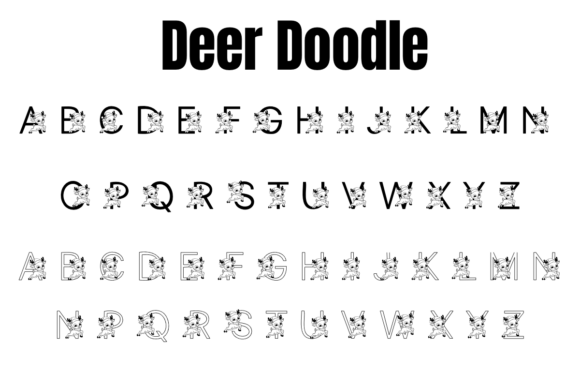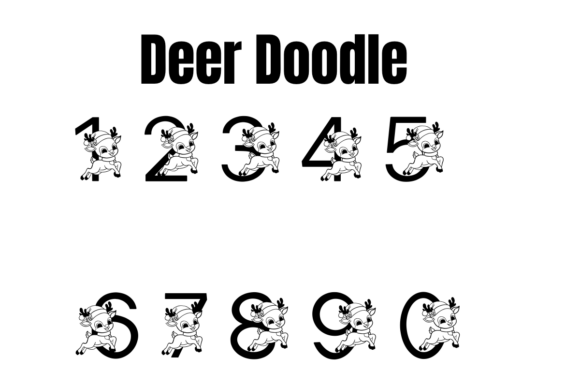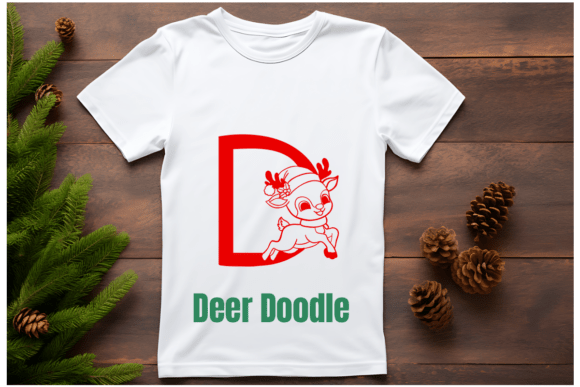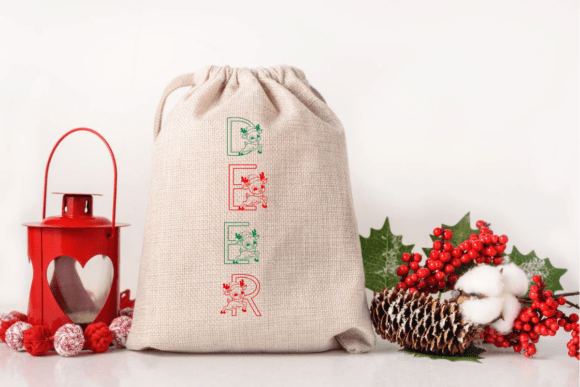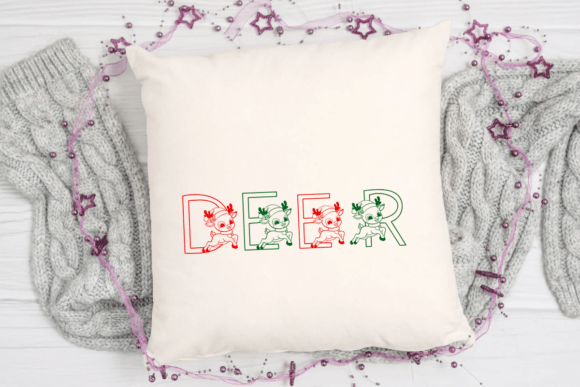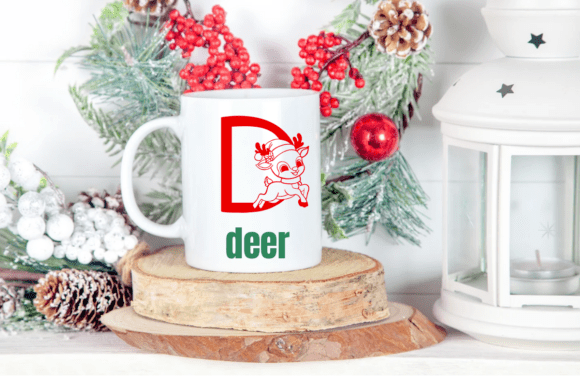
Introduction to Deer Doodle Font
Do you ever find yourself stuck in a creative rut, searching for the perfect design element to bring your project to life? For many of us, it’s that moment of discovery when we stumble upon a unique and inspiring resource that sparks our imagination. For designers and crafters alike, the discovery of the Deer Doodle Font is sure to be a game-changer.
As a high-quality, free download font, Deer Doodle Font is a treasure trove of creative possibilities. With its delightful combination of playful letterforms and adorable reindeer illustrations, this design resource is perfect for adding a joyful seasonal twist to your festive projects. Whether you’re working on Christmas cards, winter party invitations, or classroom activities, the Deer Doodle Font is sure to bring warmth, fun, and personality to your designs.
With its transparent background and solid/outlined styles, the Deer Doodle Font offers endless opportunities for mixing and matching to suit your creative vision. Whether you’re a seasoned designer or a crafty beginner, this versatile font is sure to delight both kids and adults alike, making it an invaluable addition to your design toolkit.
Key Features of Deer Doodle Font
- High-quality, unique design perfect for creative projects requiring a playful touch.
- Features a transparent background, allowing for effortless layering and customization.
- Comes in a single size, making it easy to scale and adapt to different design requirements.
- Resolution: Optimized for high-resolution displays, ensuring crisp and clear typography.
- Unique characteristics: Whimsical, hand-drawn feel and a wide range of expressive styles, making it perfect for adding a personal touch to any design project.
Honest Review: Deer Doodle Font
As a designer, I’m always on the lookout for unique and versatile fonts to elevate my creative projects. The Deer Doodle Font caught my attention, and I decided to give it a try.
- ✨ The Deer Doodle Font has a distinct and whimsical style that’s perfect for adding a touch of playfulness to designs.
- ✨ The transparent background option allows for seamless integration with other design elements.
- ⚠️ The font may not be suitable for formal or professional projects due to its informal style.
- ⚠️ The Deer Doodle Font is a bit on the larger side, which may not work well with tight typography layouts.
Overall, I’m impressed with the Deer Doodle Font. It’s a high-quality font that can add a lot of character to creative projects. While it may have some limitations, it’s a valuable addition to any design resource. I’d definitely recommend it for designers looking to add some whimsy to their work.
The Deer Doodle Font is a high-quality design resource that can elevate your creative projects. With its unique style and transparent background, it’s perfect for adding a personal touch to your designs.
Tips for Getting the Most Out of Deer Doodle Font
To get the most out of the Deer Doodle Font, try the following tips:
- Use it in combination with other design elements to create a unique look.
- Experiment with different font sizes and colors to add visual interest.
- Use it in a variety of design projects, from social media graphics to business cards.
The Deer Doodle Font is perfect for a variety of design projects, including:
- Social media graphics and posts.
- Business cards and marketing materials.
- Web design and development.